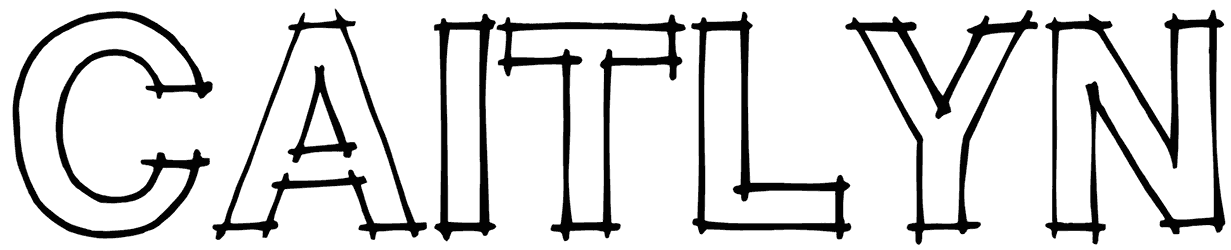
Caitlyn Font
Caitlyn is an example of the fonts that have left behind their normal design and have been combined with outlines. This font is obtained from the intersection of geometric lines and is very scalable.
As a result, it can be used to design all kinds of logos, urban posters, and advertising banners. This blueprint font does not support lowercase letters, but it will work very well where you need to draw attention.